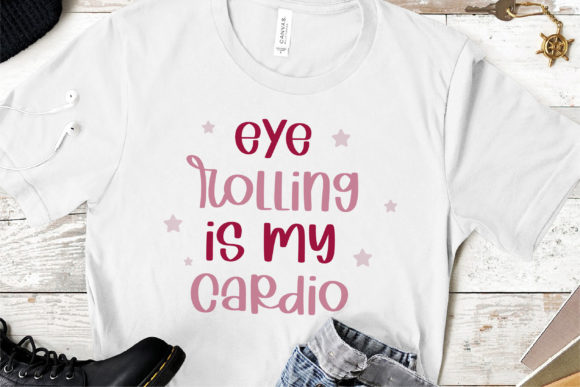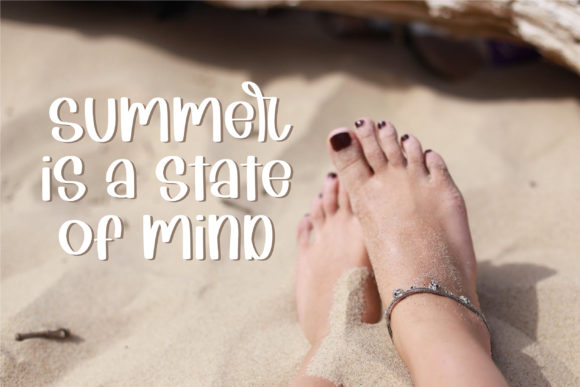
Happy Thanksgiving Font
Happy Thanksgiving is a cute and neat handwritten font. Its natural and unique style makes it incredibly fitting to a large pool of designs.